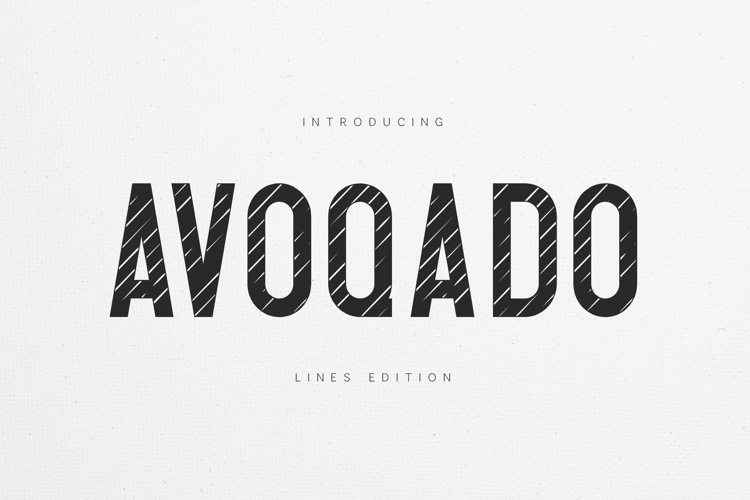
Avoqado Lines Display Font
Avoqado is a bold striped display font designed to make a powerful visual impact. Featuring unique engraved line details, condensed letterforms, and a strong industrial aesthetic, this decorative font is perfect for logos, branding, posters, packaging, apparel, merchandise, social media graphics, sports designs, advertising campaigns, album covers, book covers, website headers, and eye-catching typography projects.
The distinctive line texture creates depth and character while maintaining excellent readability at large sizes. Whether you're creating modern branding, vintage-inspired artwork, urban streetwear graphics, retro packaging, or bold editorial layouts, Avoqado delivers a memorable and professional look.
This versatile display typeface works beautifully for logos, headlines, product packaging, labels, restaurant branding, beverage designs, promotional materials, event posters, YouTube thumbnails, Instagram content, and marketing projects.